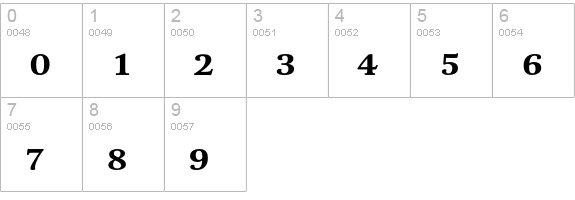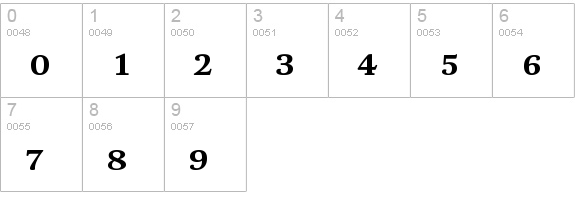
DTLUnicoT-CapsBold is a striking and bold typeface that exudes power and confidence. Its strong, uppercase letters make a bold statement in any design project. This font is perfect for headlines, logos, posters, and any other design element that requires a bold and impactful look. The best part? DTLUnicoT-CapsBold is available for free download at FontsMarket.com. You can easily add this impressive font to your collection without any cost, making it a valuable asset for both personal and commercial projects. Don't miss out on the opportunity to enhance your designs with this eye-catching typeface. Download DTLUnicoT-CapsBold today and make a statement with your typography.